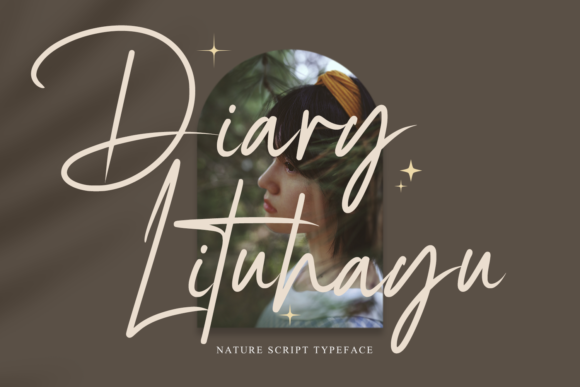
Unlocking the Art of Handwritten Luxury: Diary Lituhayu Font
There’s something magical about putting pen to paper, watching words come alive in a beautiful, flowing script. As designers, we know the power of handwritten typography in evoking emotion and creating a lasting impression. Whether it’s a wedding invitation or a logo for a luxury brand, the right font can make all the difference.
Enter the Diary Lituhayu Font, a stunning script font designed to add a touch of elegance and sophistication to any project. With its PUA encoded glyphs and ligatures, this font is a designer’s dream come true. From modern websites to fashion branding, the Diary Lituhayu Font is the perfect tool for creating high-end, handwritten-style designs that leave a lasting impression.
Diary Lituhayu Font Key Features
- Font Family: Diary Lituhayu, a unique and elegant script font designed to evoke a sense of nostalgia and romance.
- Unique Characteristics: The Diary Lituhayu font features a distinctive, handwritten style with intricate details and flourishes, making it perfect for creating romantic and elegant designs.
Designer Review: Diary Lituhayu Font
At first glance, Diary Lituhayu Font seems like a great addition to any font collection. ✨ The unique combination of elegant and playful elements makes it perfect for projects that require a mix of sophistication and whimsy. ✨ The font’s curves and lines are well-balanced, resulting in a visually appealing design that’s sure to catch the eye.
One of the standout features of Diary Lituhayu Font is its versatility. ✨ It can be used for a wide range of projects, from logos and branding to body text and display headings. The font also comes in a variety of weights, making it easy to find the perfect style to suit your needs.
While Diary Lituhayu Font has many great qualities, there are a few limitations to be aware of. ⚠️ For one, the font may not be as legible in smaller font sizes. ⚠️ Additionally, some users may find the font’s more playful elements to be distracting or overwhelming.
Overall, I would give Diary Lituhayu Font 4 out of 5 stars. It’s a great choice for designers looking for a unique and versatile font, but it may not be the best option for projects that require high levels of legibility or sophistication.
- Unique combination of elegant and playful elements
- Well-balanced curves and lines
- Available in a variety of weights
- Perfect for logos, branding, body text, and display headings
Tips for Getting the Most Out of Diary Lituhayu Font
For the best results, use Diary Lituhayu Font in conjunction with a high-quality image or background.
Use the font in moderation to avoid overwhelming your design.
Diary Lituhayu Font is ideal for:
Baby shower and birthday party invitations
Scrapbooking and journaling
Any design that requires a whimsical and playful touch.
Alternatives to Diary Lituhayu Font
Great Vibes Font is a modern, elegant script font. It’s perfect for use in wedding invitations, branding, and packaging designs. Great Vibes Font is a great alternative to Diary Lituhayu Font because it offers a similar level of sophistication and elegance, but with a more modern feel. Great Vibes Font is more versatile and can be used in a wider range of designs.
Carolyna Pro Font is a beautiful, cursive script font. It’s ideal for use in invitations, branding, and editorial designs. Carolyna Pro Font is similar to Diary Lituhayu Font in terms of its elegant and refined feel, but it has a more polished and professional appearance. Carolyna Pro Font is a great choice for designers who want a high-end look without the ornate details of Diary Lituhayu Font.